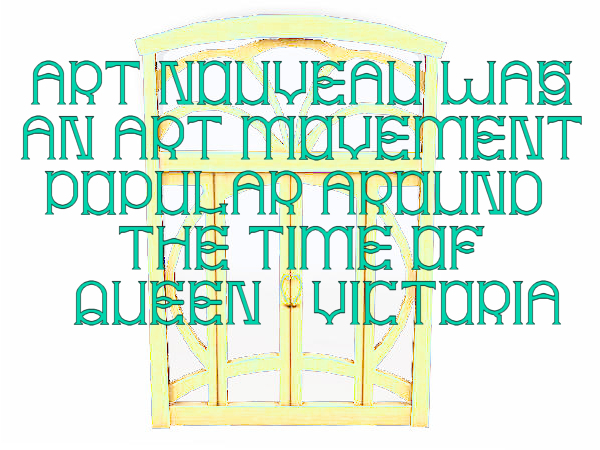
• This is based on a beautiful copper-wood-stained glass door of an Art Nouveau building, letters Q,  O and Y were the first ones to echo the door's design. The other glyphs needed more thinking about and experimentig to maintain the style.
Lower Case = Upper Case. Alternate A, B, E, F, H, N, S on UC.
Like the X, looks like cyrillic Ж
Also, Ü is missing umlat.